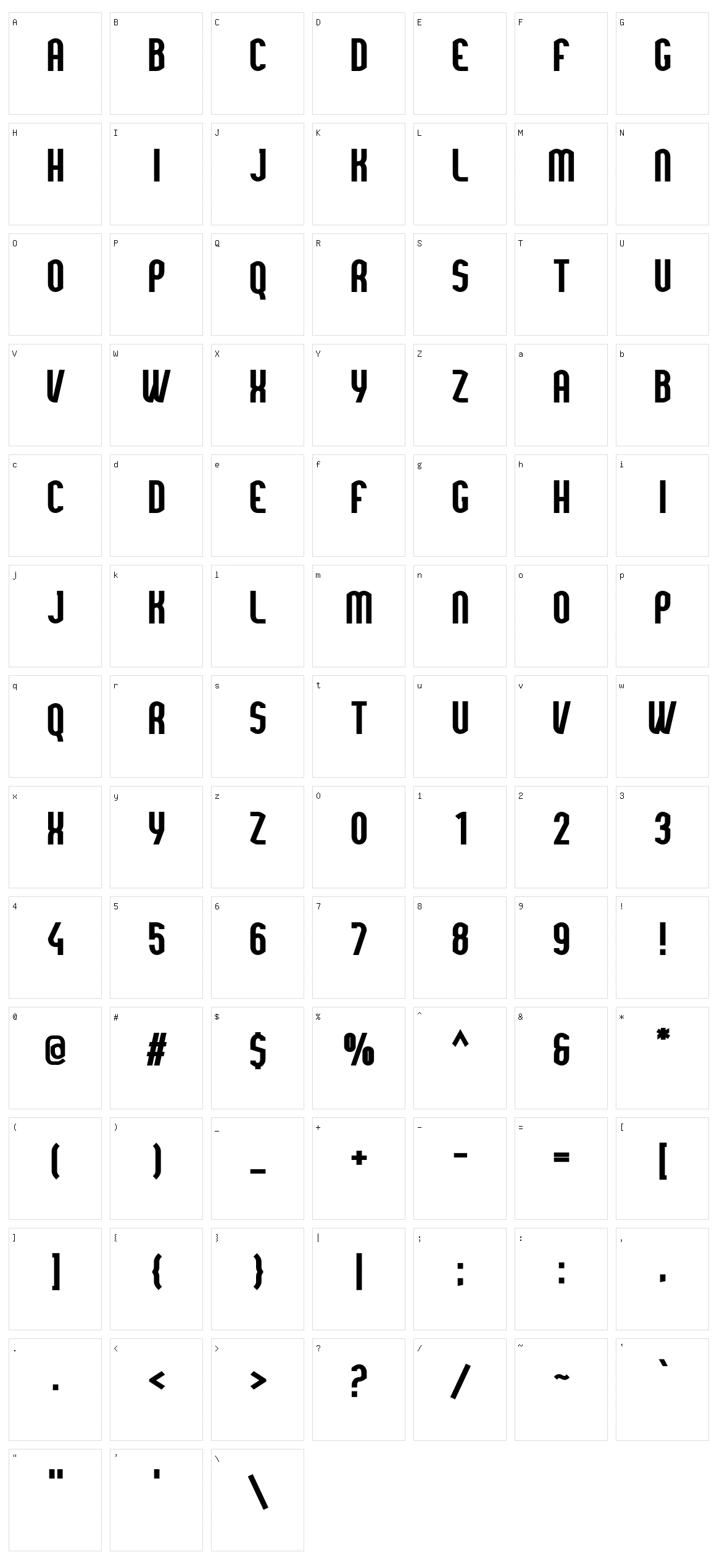
Yemeyi is a modern and daring display font. No matter the topic, this font will be an incredibly asset to your fontsâ library, as it has the potential to elevate any creation.